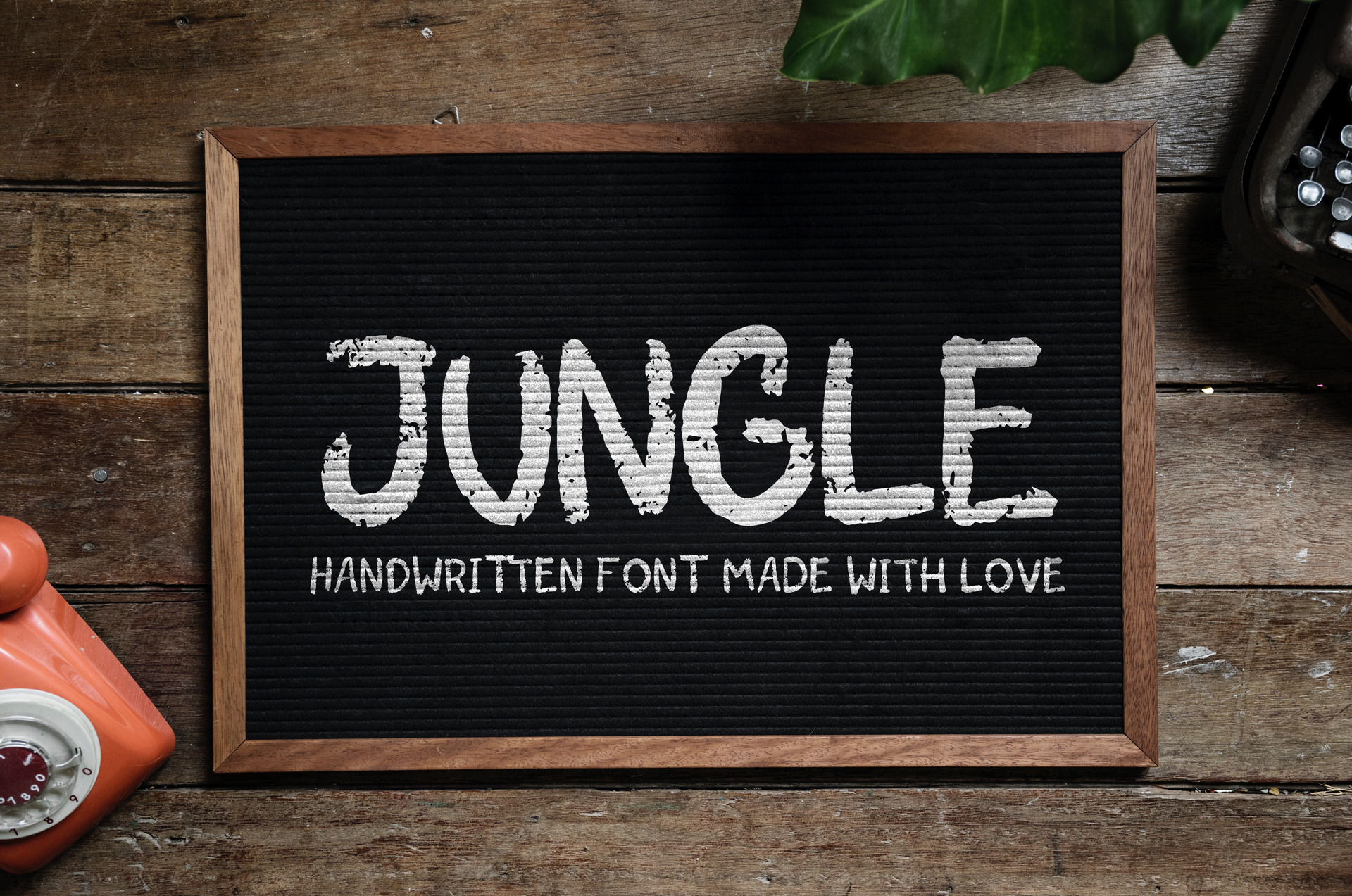
Jungle Handwritten font
Jungle is handwritten font made with love. The chalk-like brush gives it realistic handwritten effect. Repeating letters switch styles for more realistic effect. Suitable for logos, posters, headlines. Currently including basic Latin and punctuation. Stay tuned for updates.